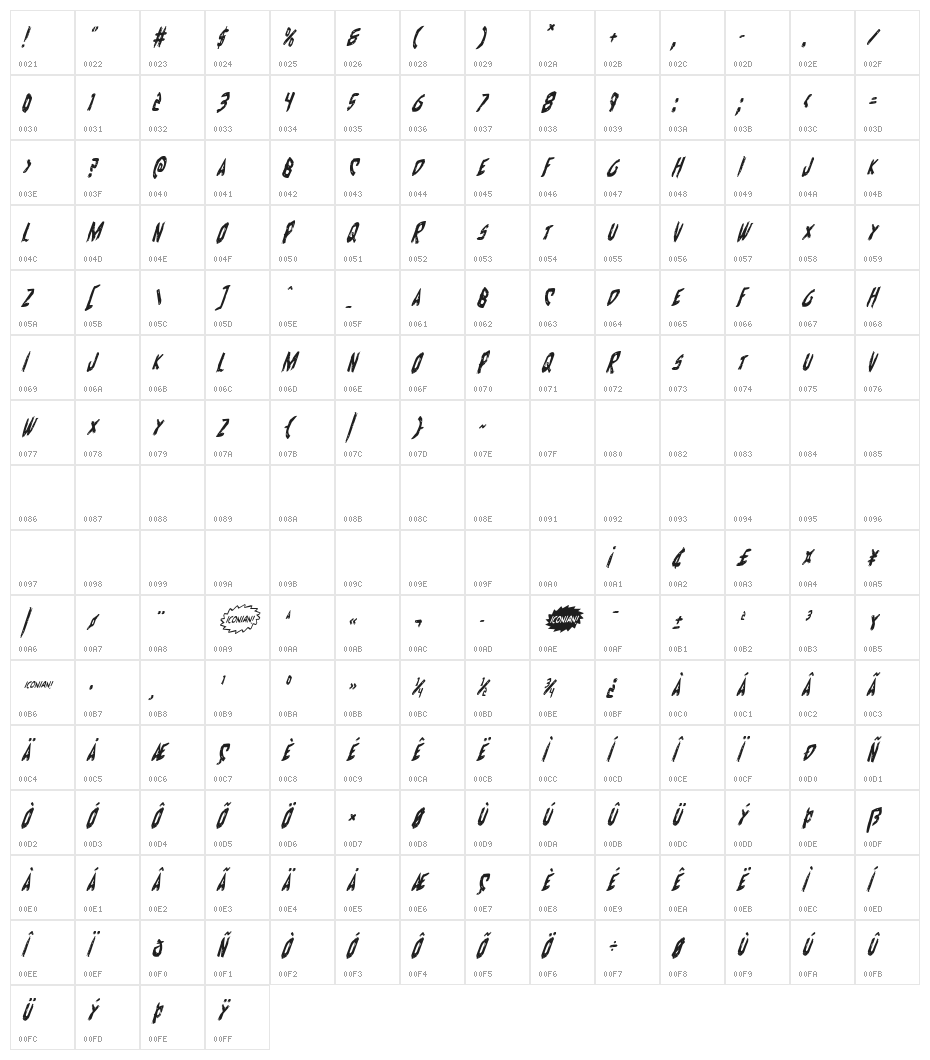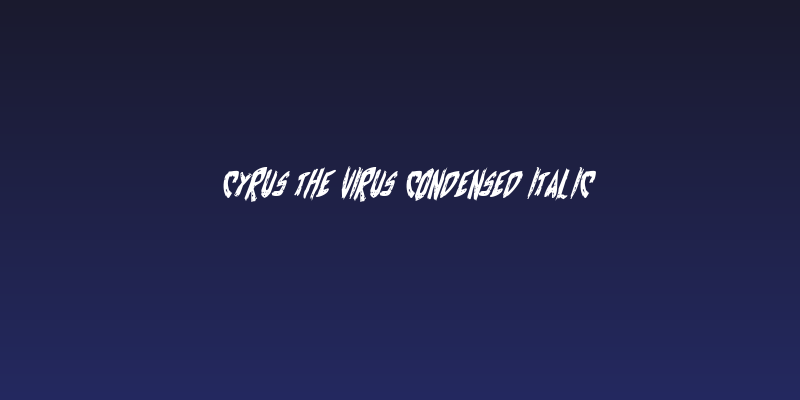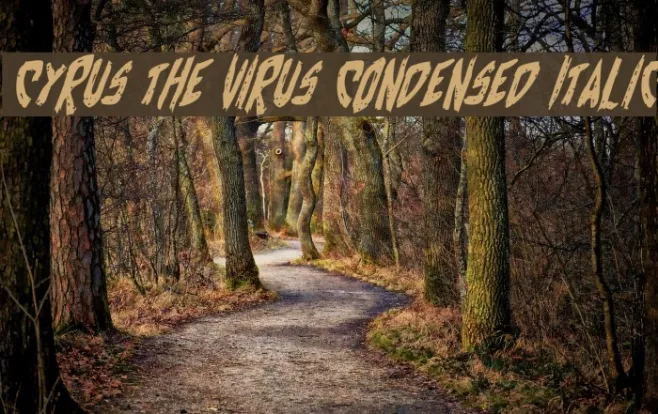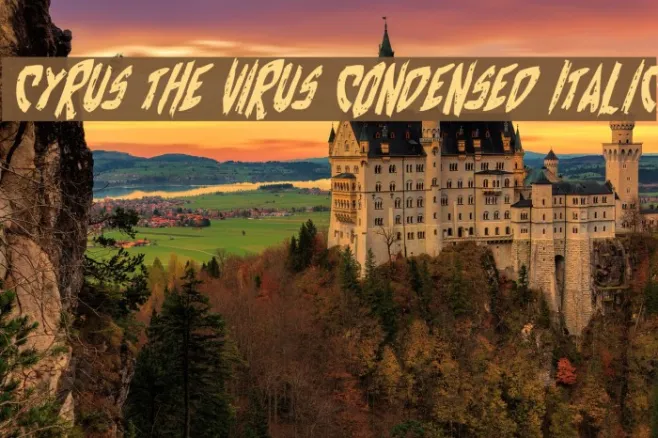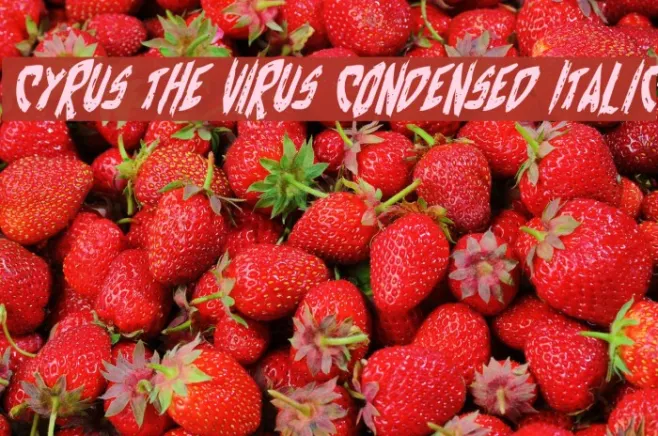
Cyrus the Virus Condensed Italic Font
Cyrus the Virus Condensed Italic Description
This font features a bold, distressed style with a condensed and italicized form. The characters have a rough, grunge-like texture that gives them an edgy and dynamic appearance. The uppercase and lowercase letters maintain a consistent style, with sharp angles and irregular edges that create a sense of movement and urgency. The numbers and special characters follow the same aesthetic, ensuring a cohesive look across all glyphs. This font is ideal for projects that require a bold statement or a rebellious, unconventional vibe.
| Overall Style | Modern, Edgy |
| Proposed Projects | Perfect for music album covers, edgy posters, streetwear branding, or any project needing a rebellious and dynamic look. |